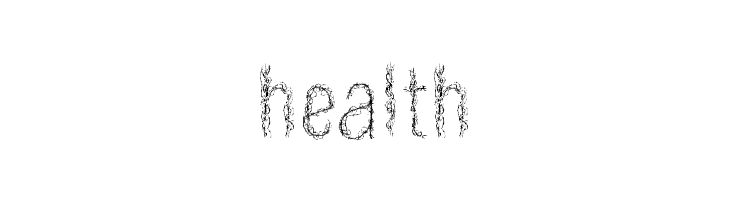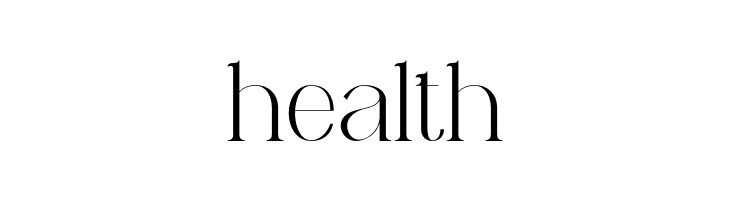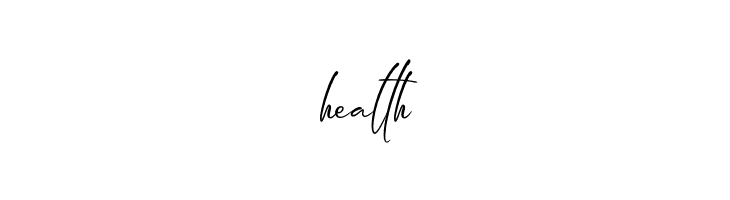
A classic cursive font with elegant, flowing script and interconnected letters.
A bold, hand-drawn font with dynamic, uneven strokes and a playful style.
An intricate, organic font resembling tangled vines or roots.
An elegant italic font with high contrast and refined serifs.
A sophisticated, high-contrast serif font with elegant, modern styling.
A graceful and sophisticated script font with flowing, interconnected letters.
A delicate, handwritten font with elegant, flowing lines and a whimsical touch.
A bold, elegant script font with flowing, interconnected letters.
A bold, italic script font with elegant, flowing cursive letters.
A sophisticated, flowing script font with an elegant italic style.